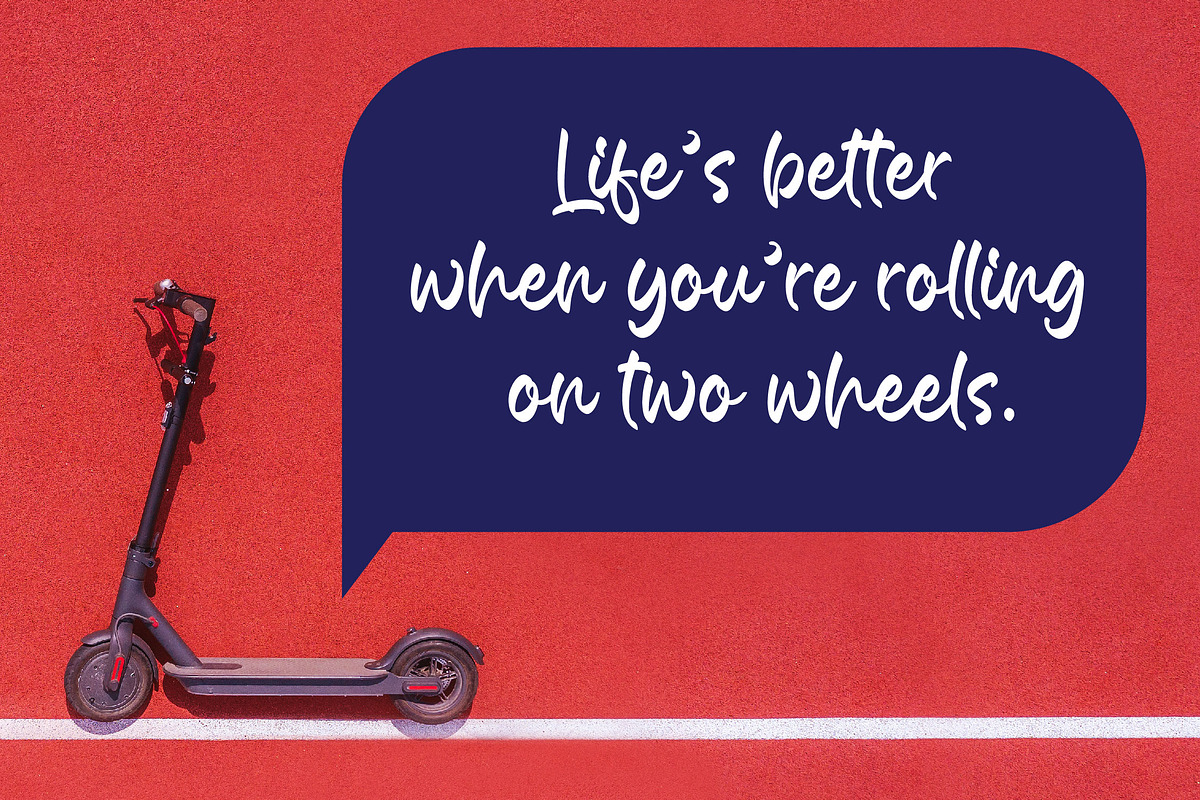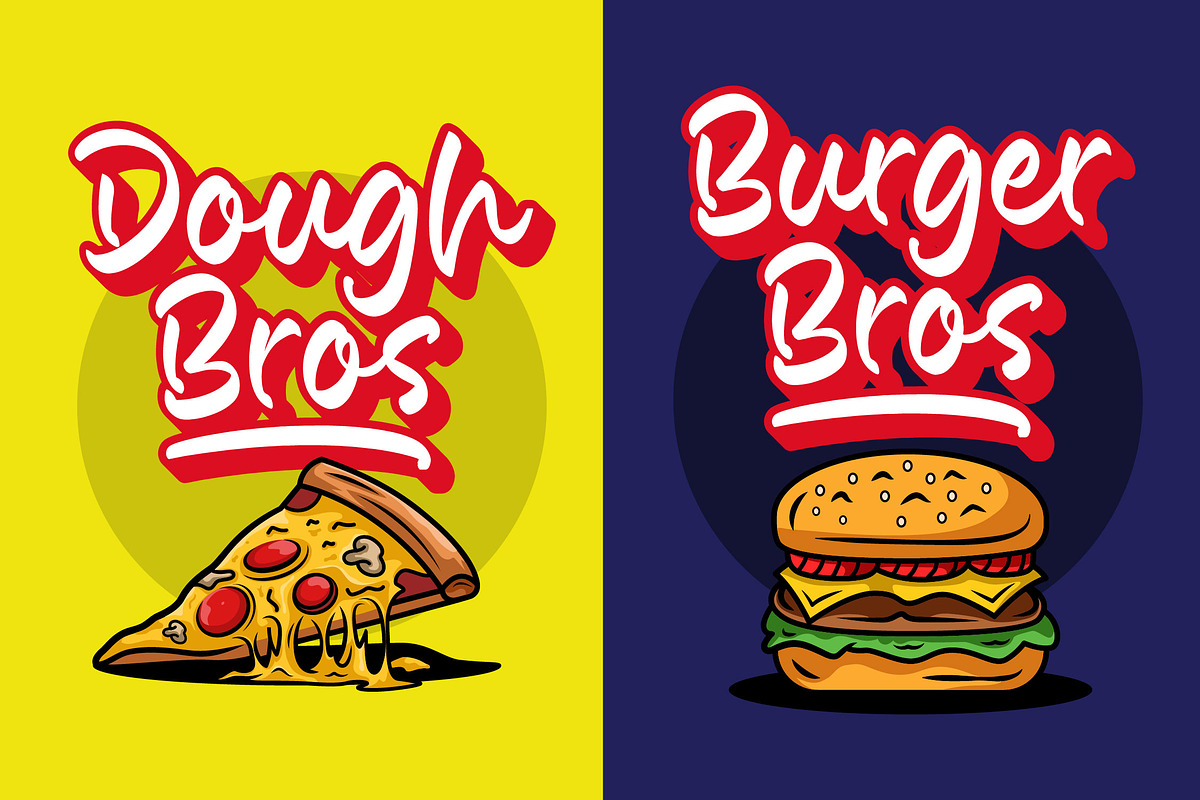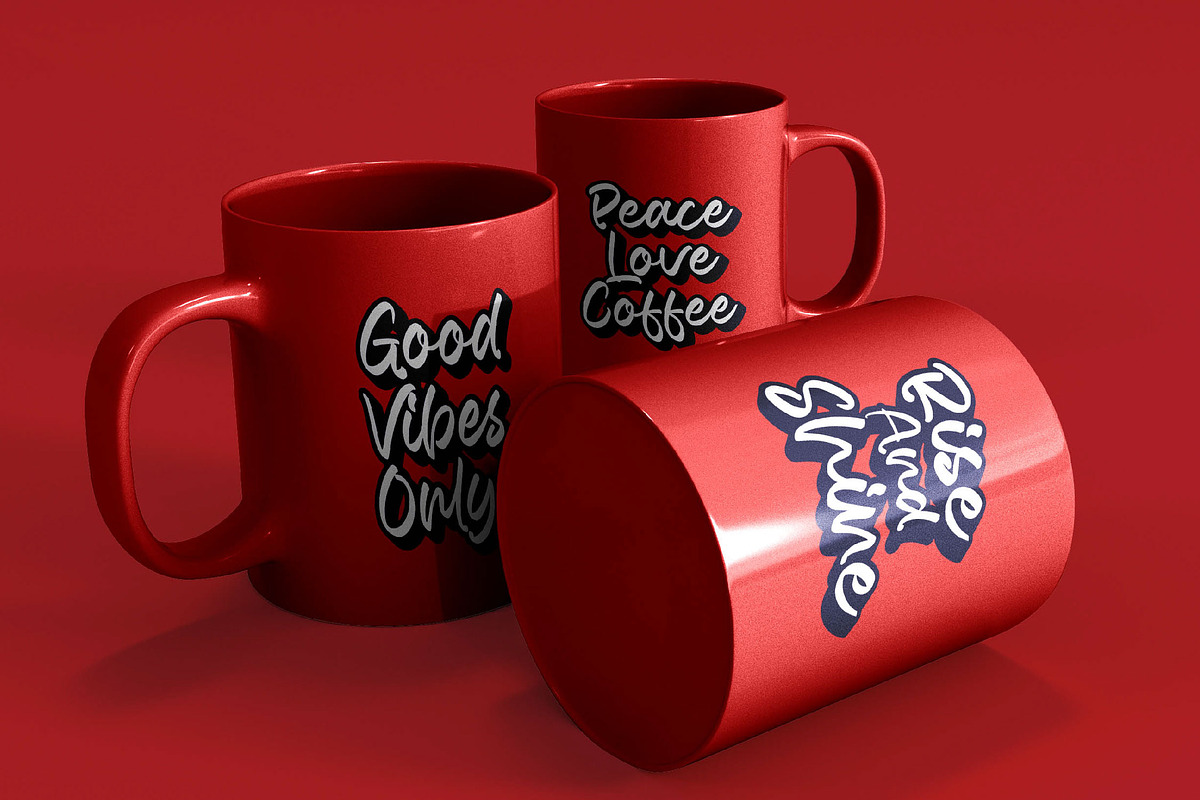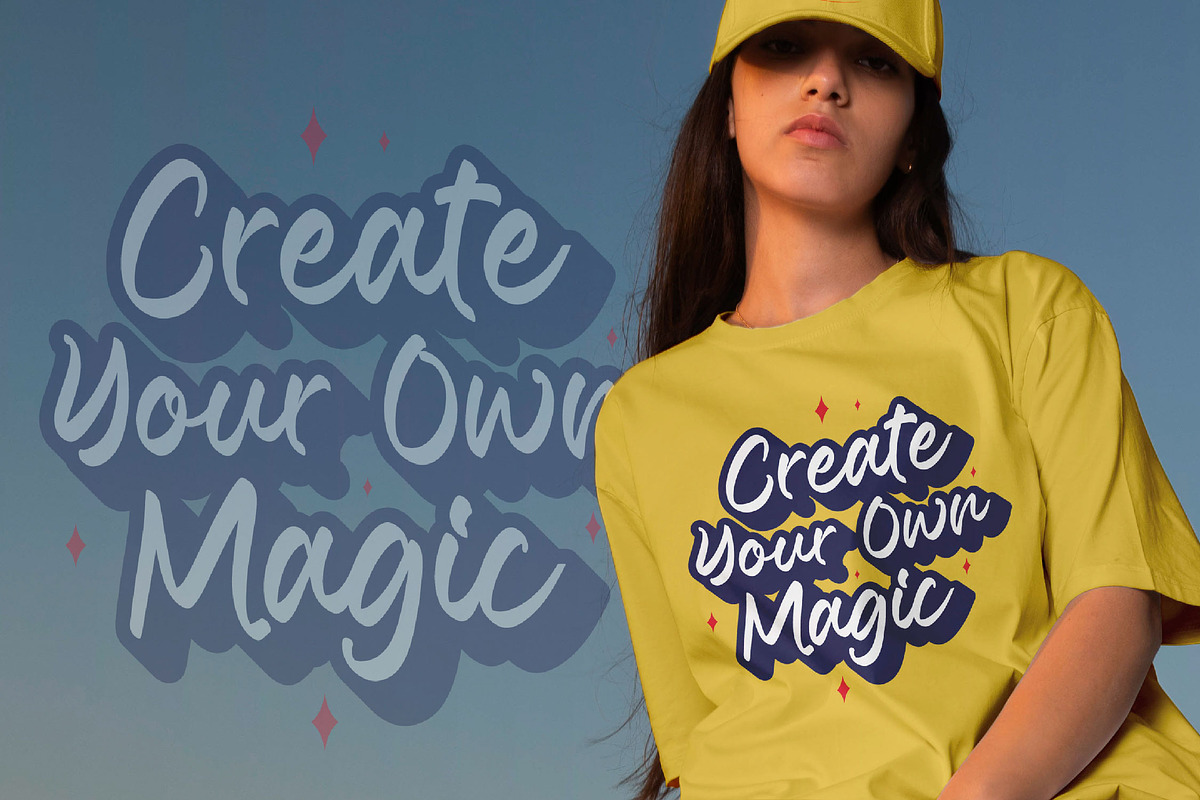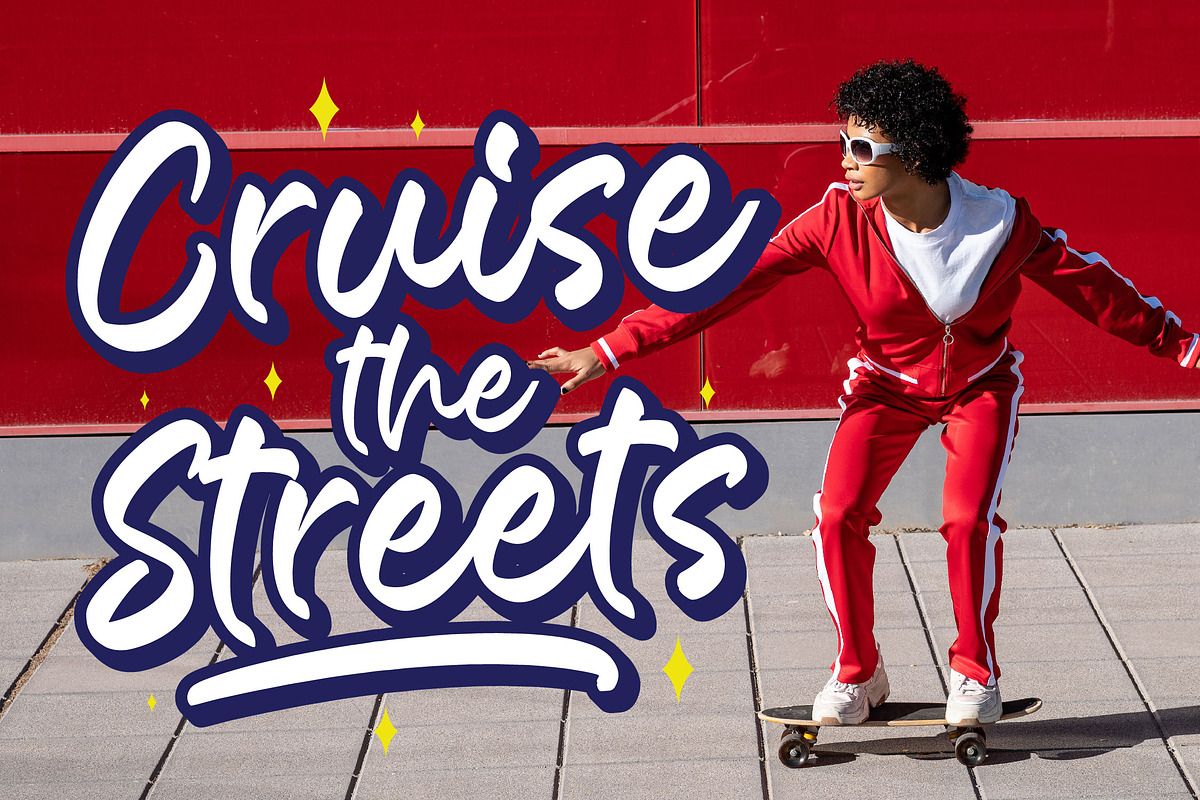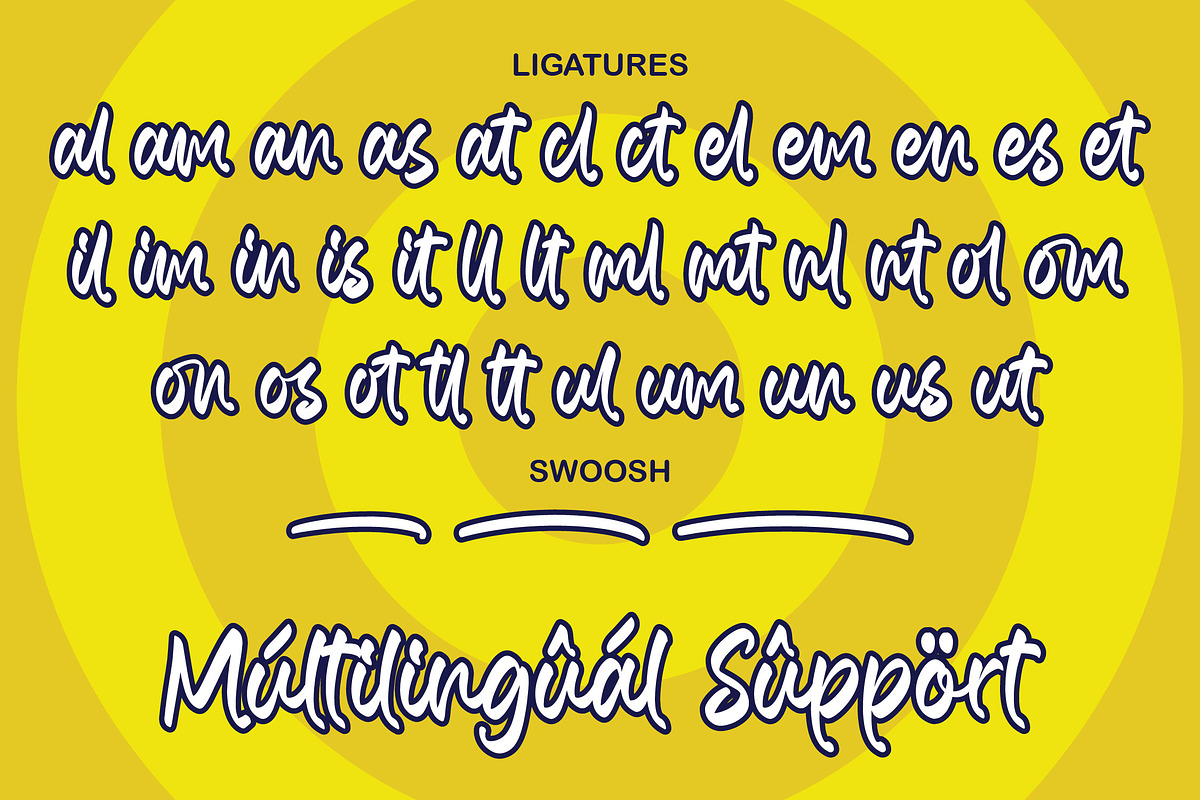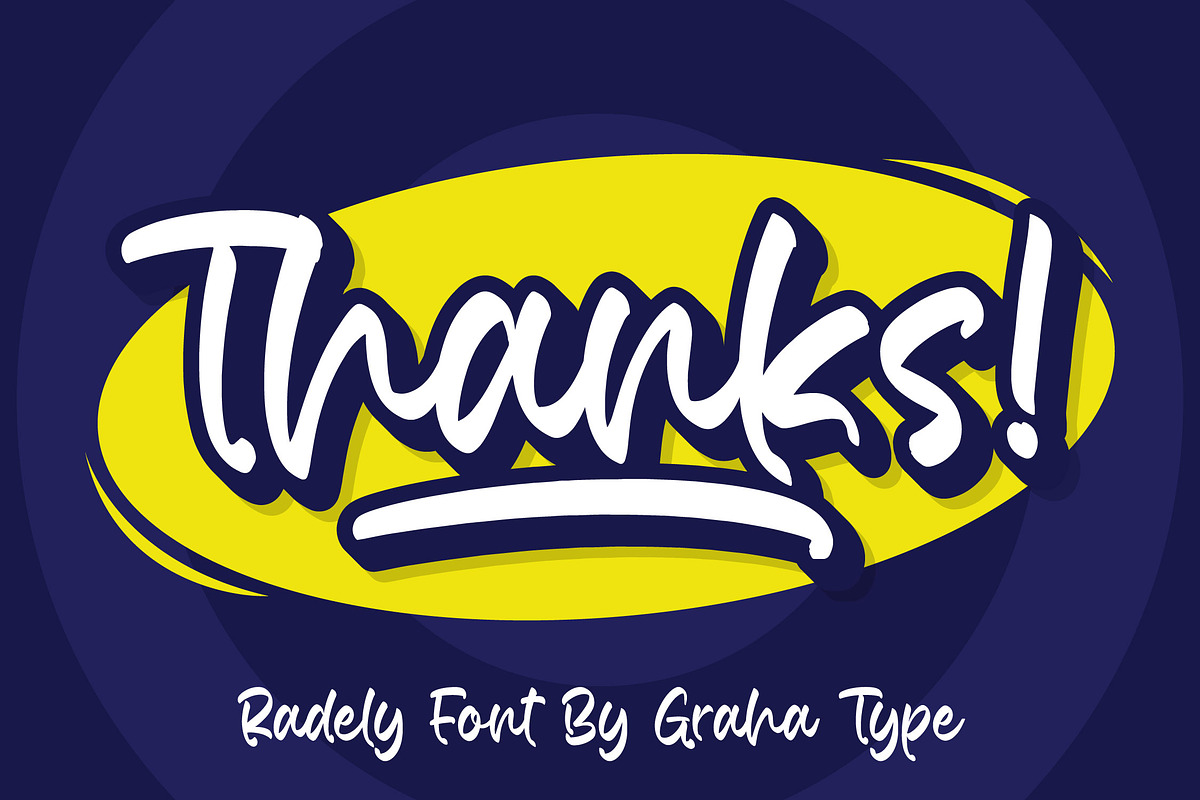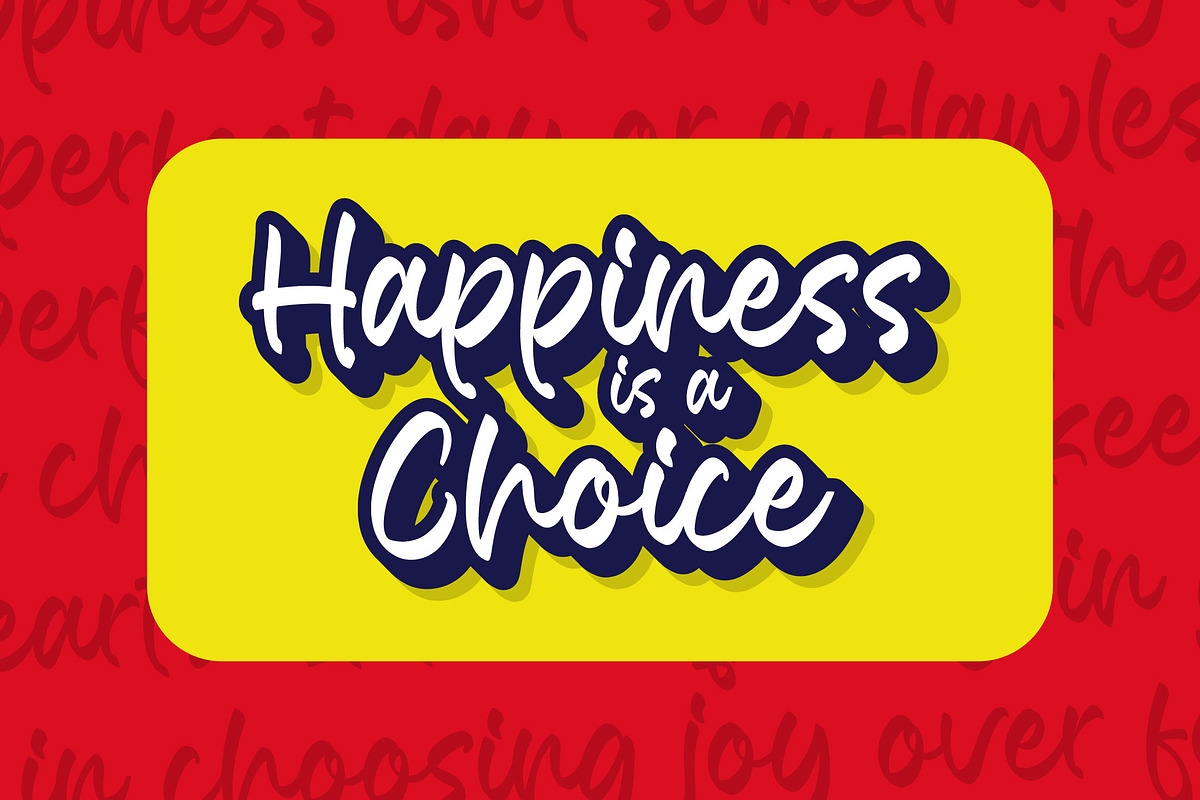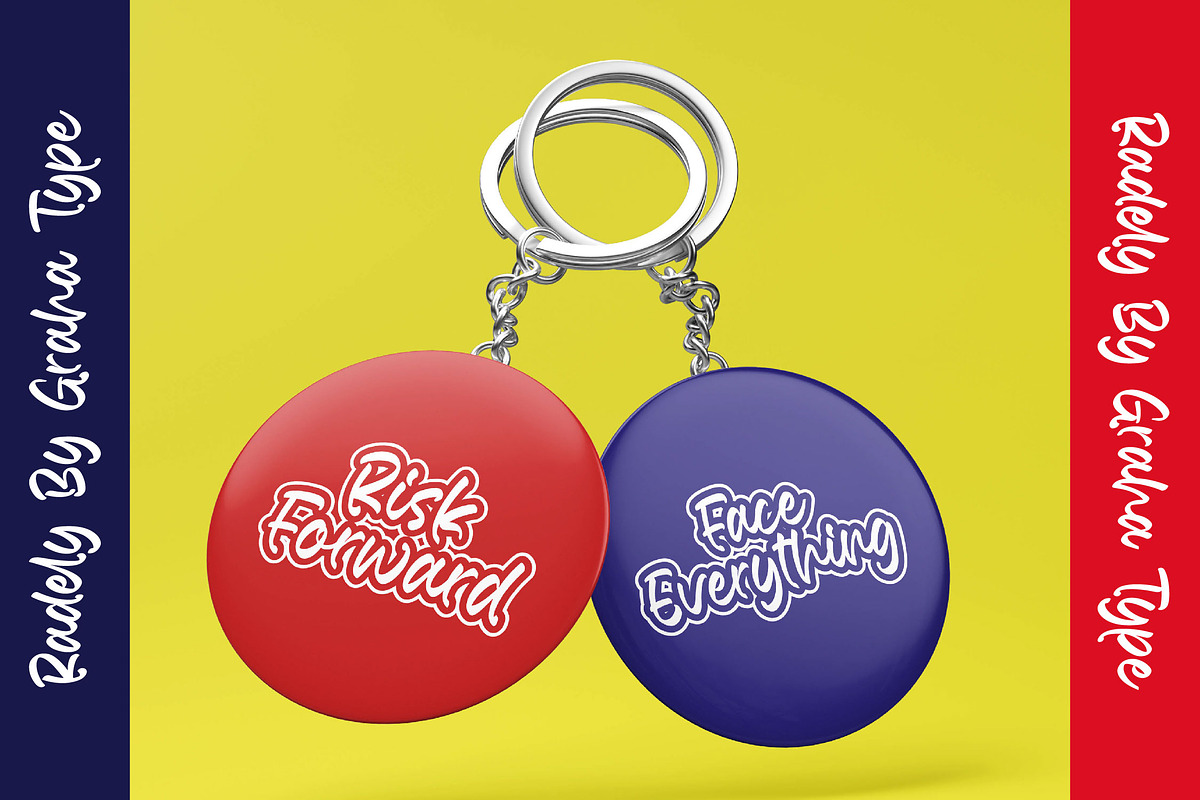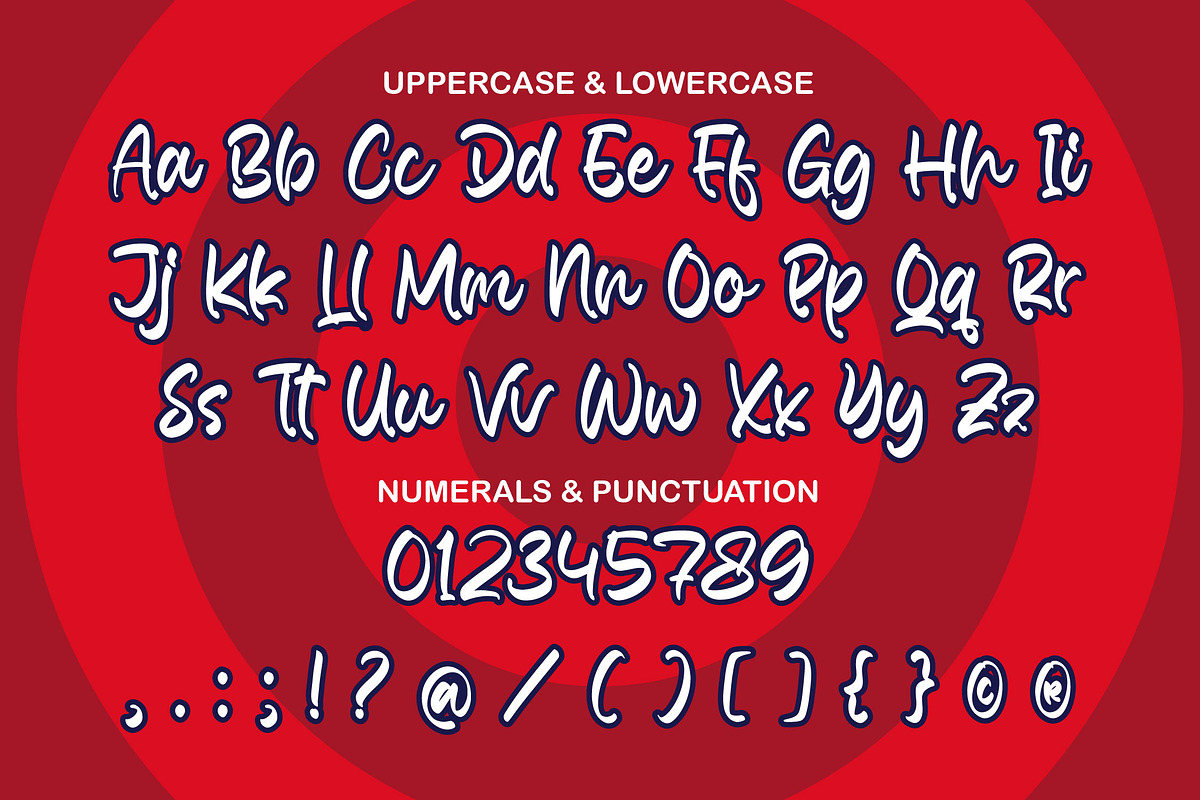
Radely - Bold Script Font
Radely is a bold script font with strong curves and smooth flow, perfect for modern branding, logos, posters, and merchandise.
Designed to stand out, Radely brings a confident and stylish feel to your creative projects. With ligatures and multilingual support, it works seamlessly across various platforms and design tools like Adobe Illustrator, Photoshop, Canva and more.
- Ligatures for natural flow
Ideal for:
- Branding & logo design
- Apparel & merchandise
- Social media graphics
- Posters & packaging